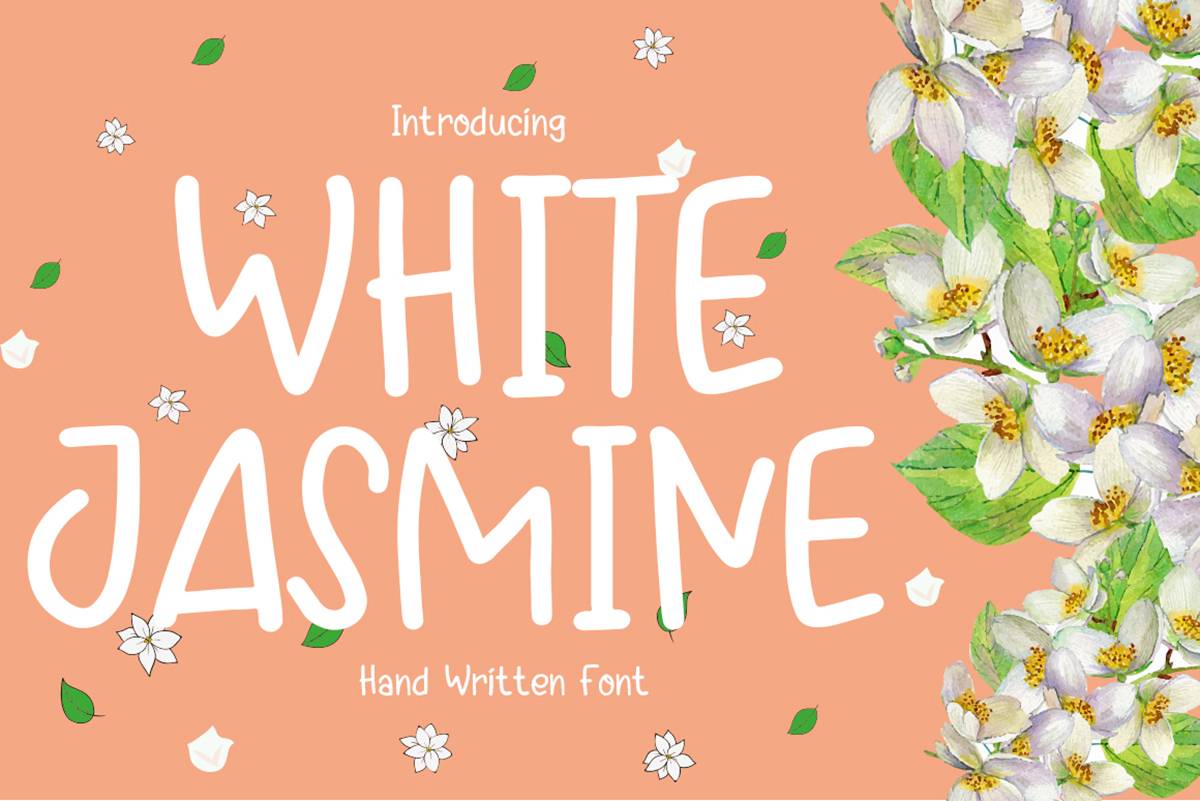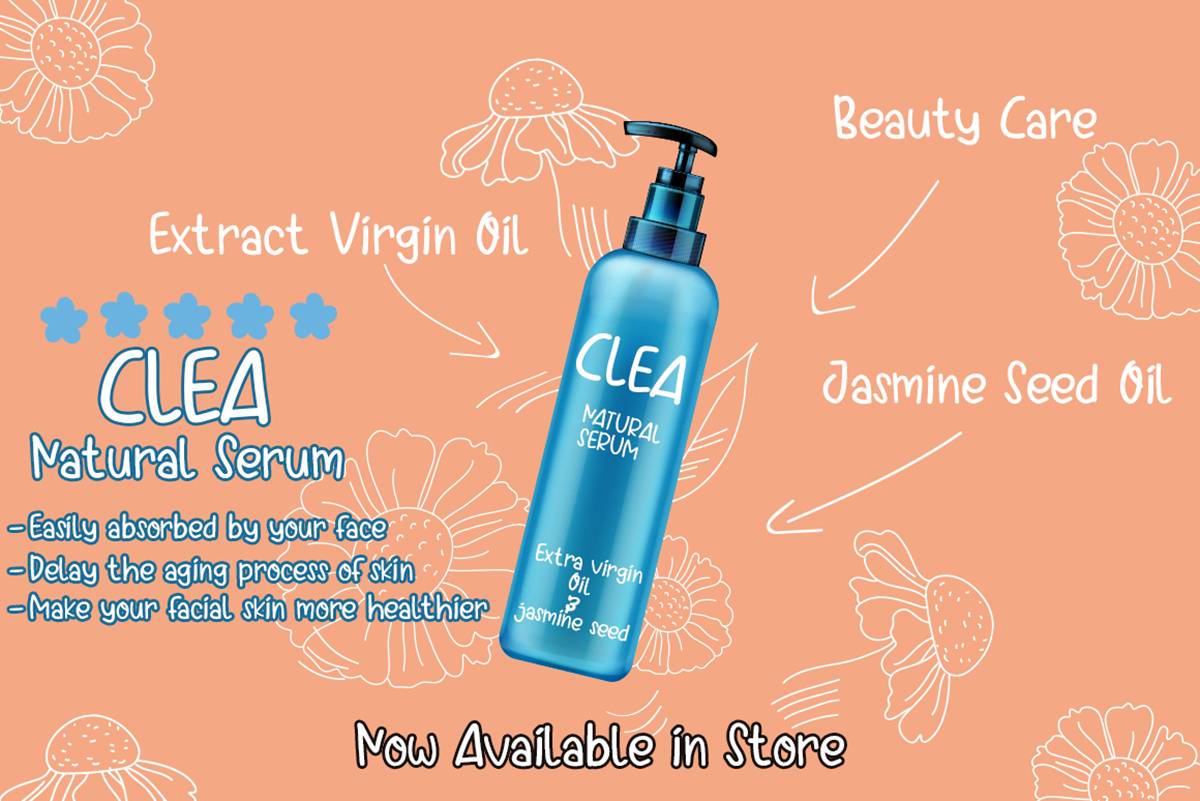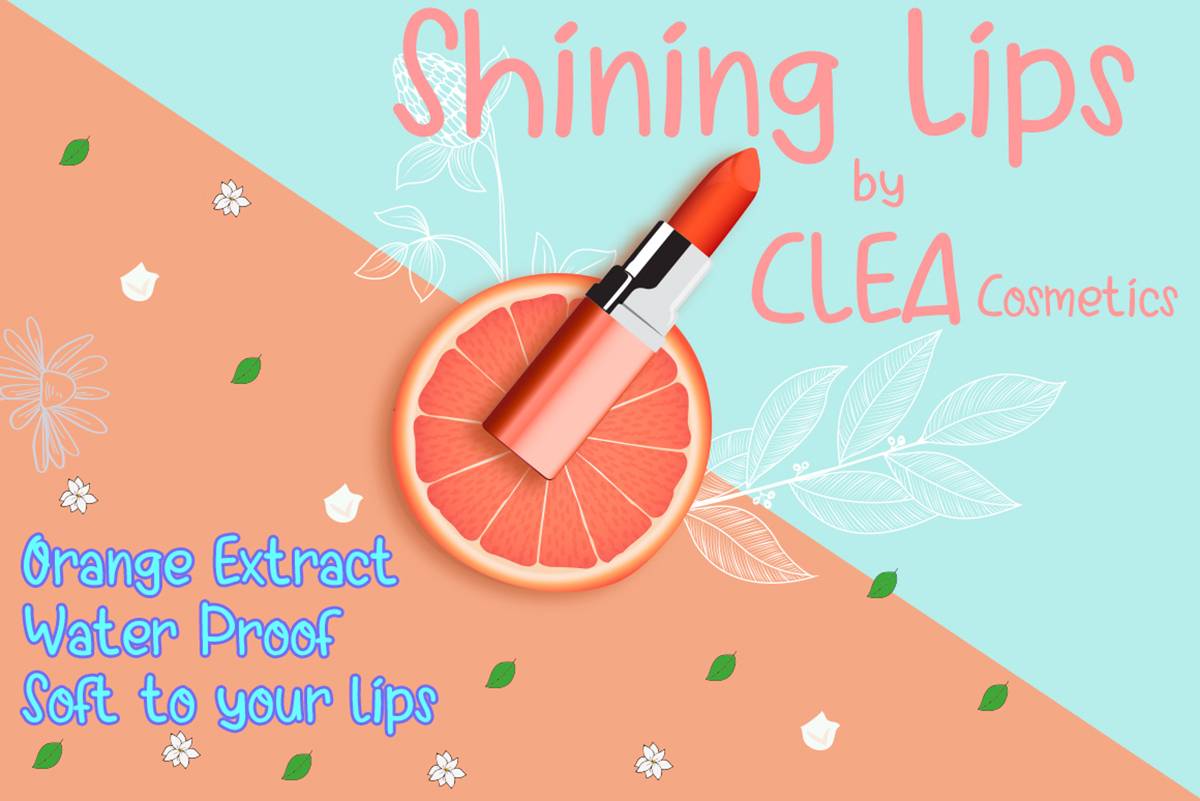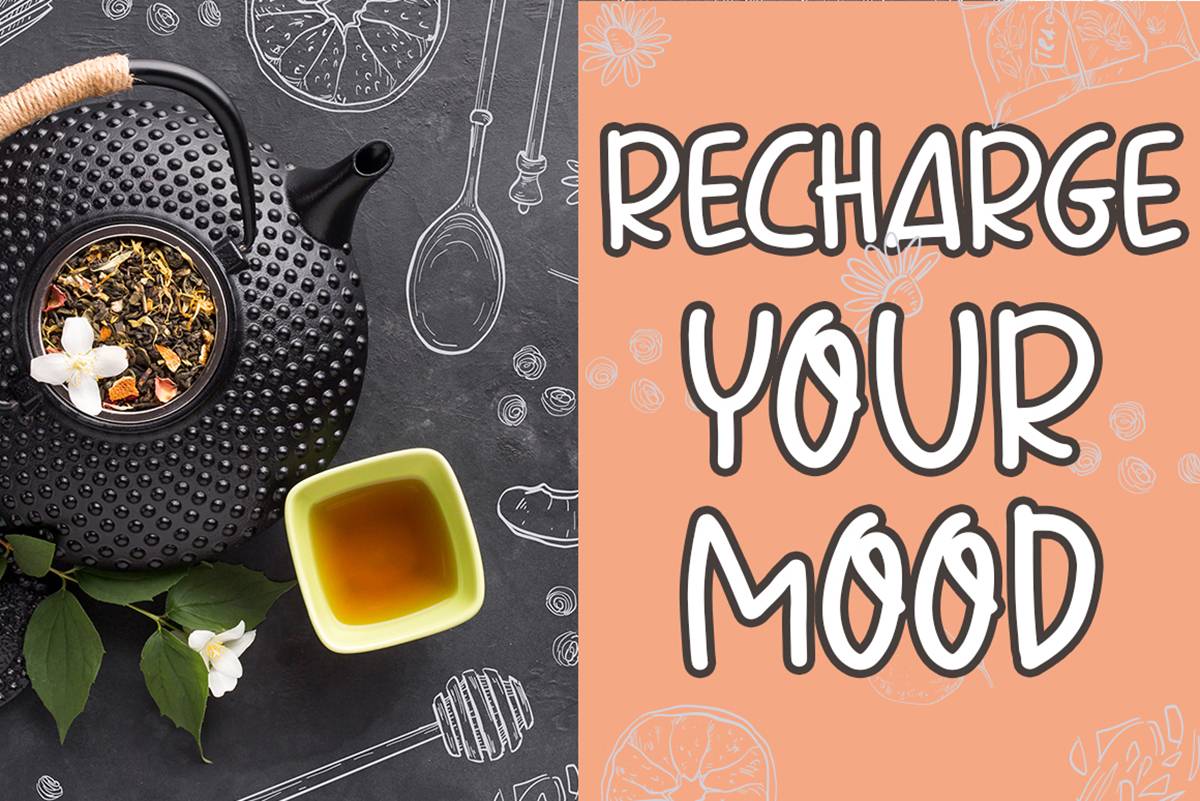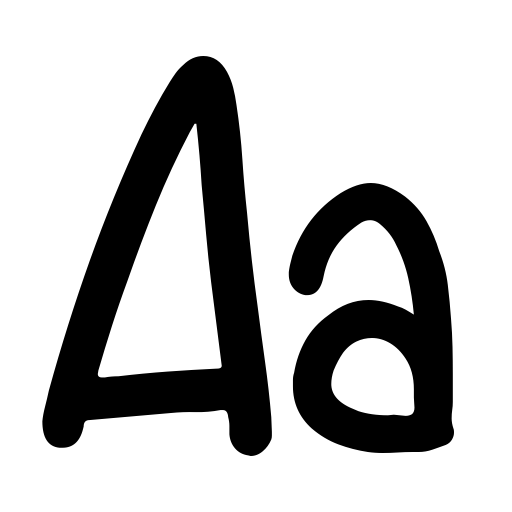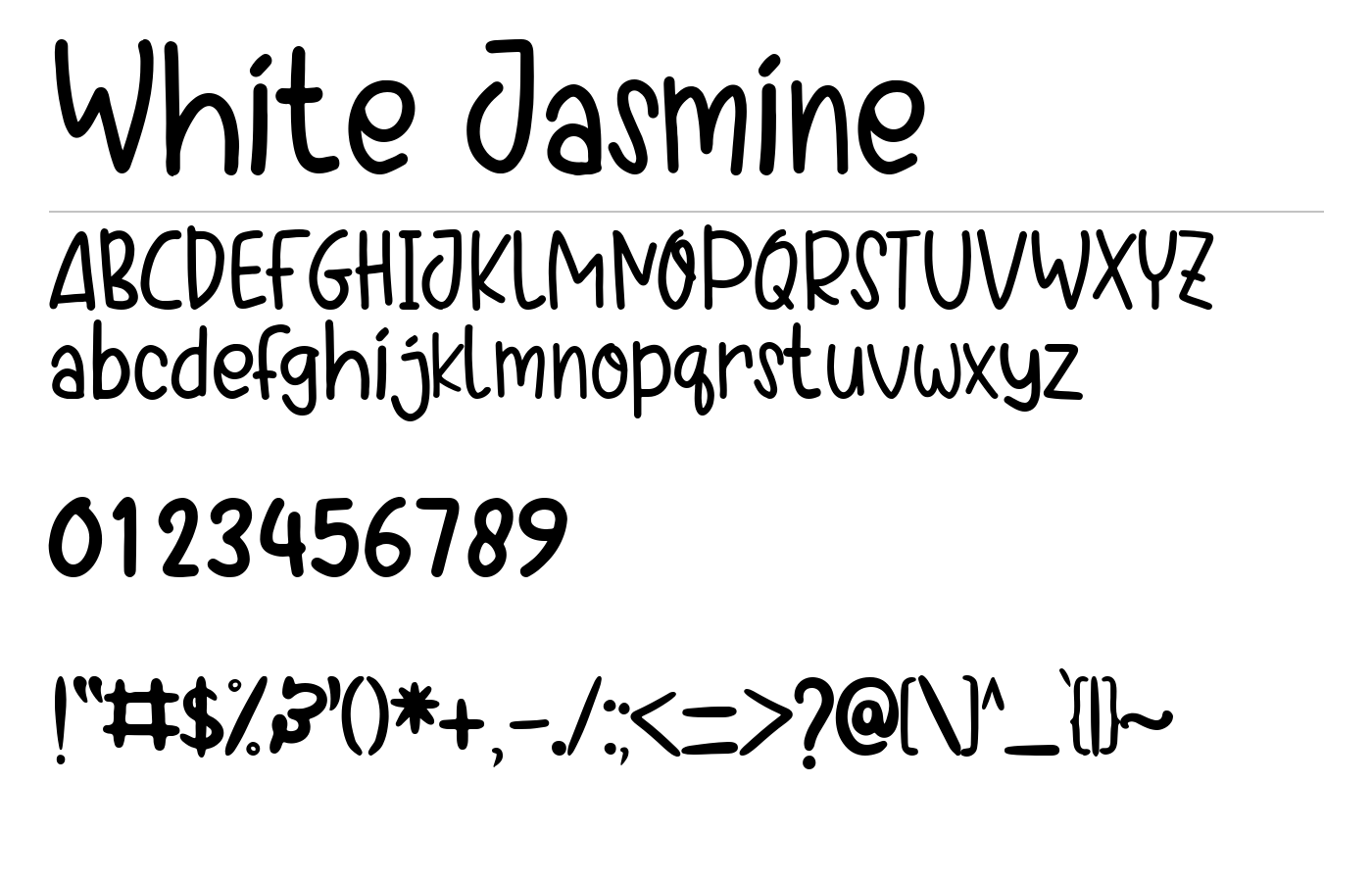
White Jasmine is a playful and casual handwritten sans serif font with a friendly, approachable feel. Its uneven, rounded strokes and quirky letterforms make it ideal for creative, informal branding, children's materials, and fun editorial designs. This font works best in headlines and display uses where a warm, personal touch is needed.
White Jasmine Font
About White Jasmine Font
| Font family | White Jasmine Font |
| Release date | 2020-10-17 |
| Designer | Fajar Wicaksono |
| Trademark | Booga Letter |